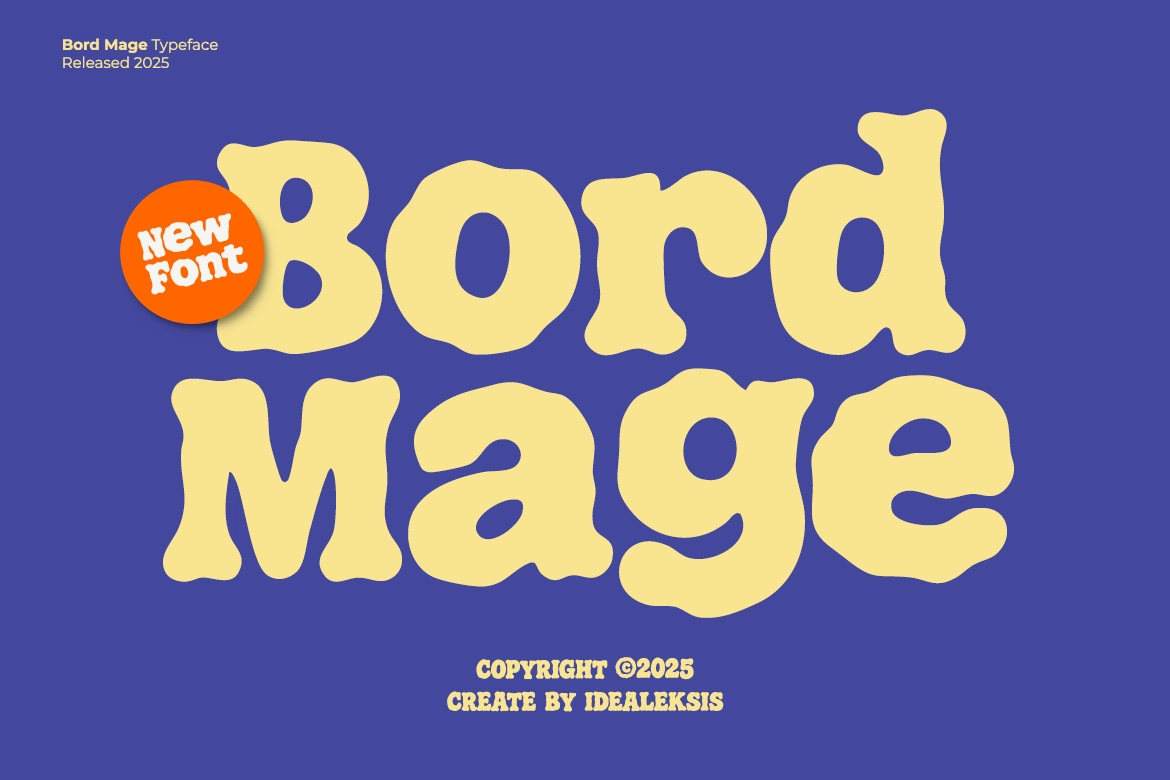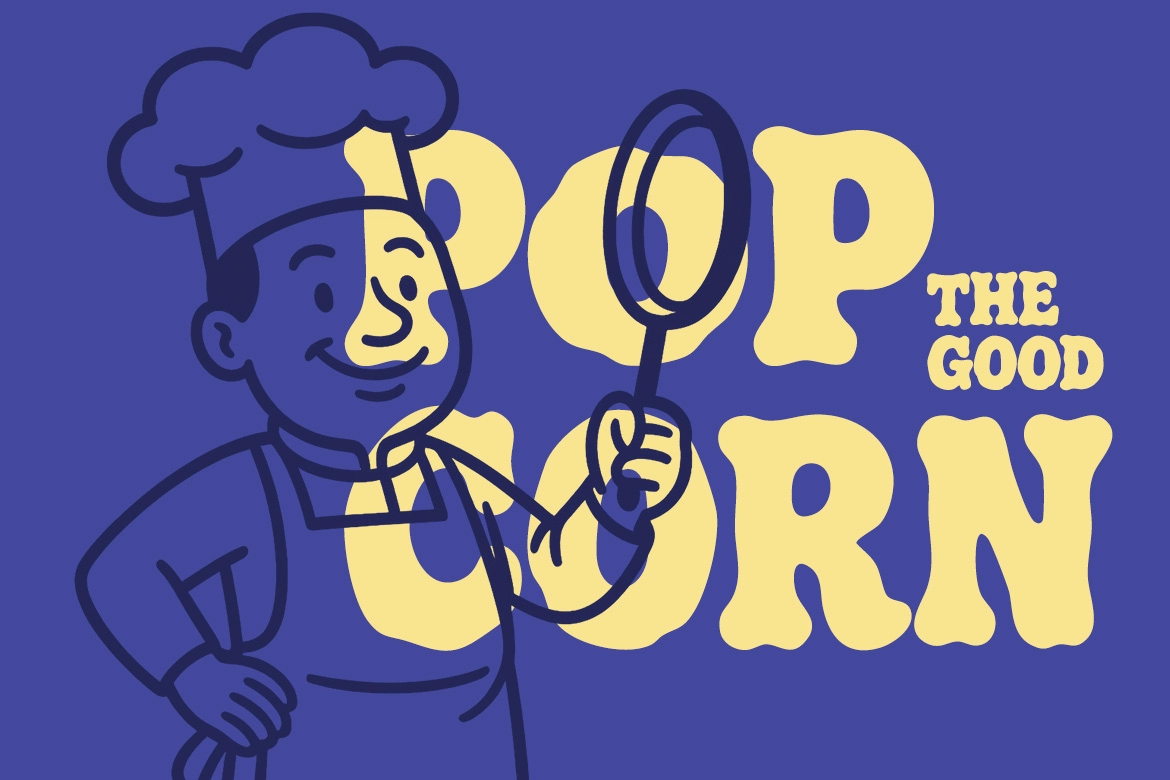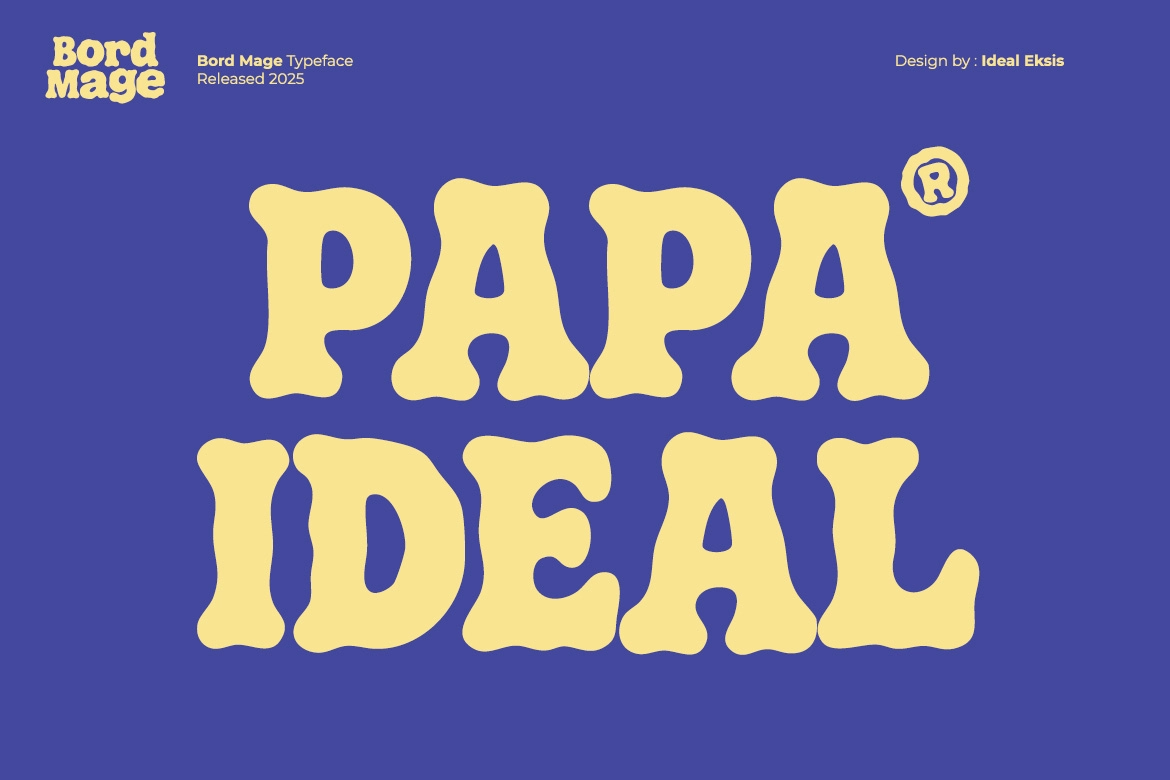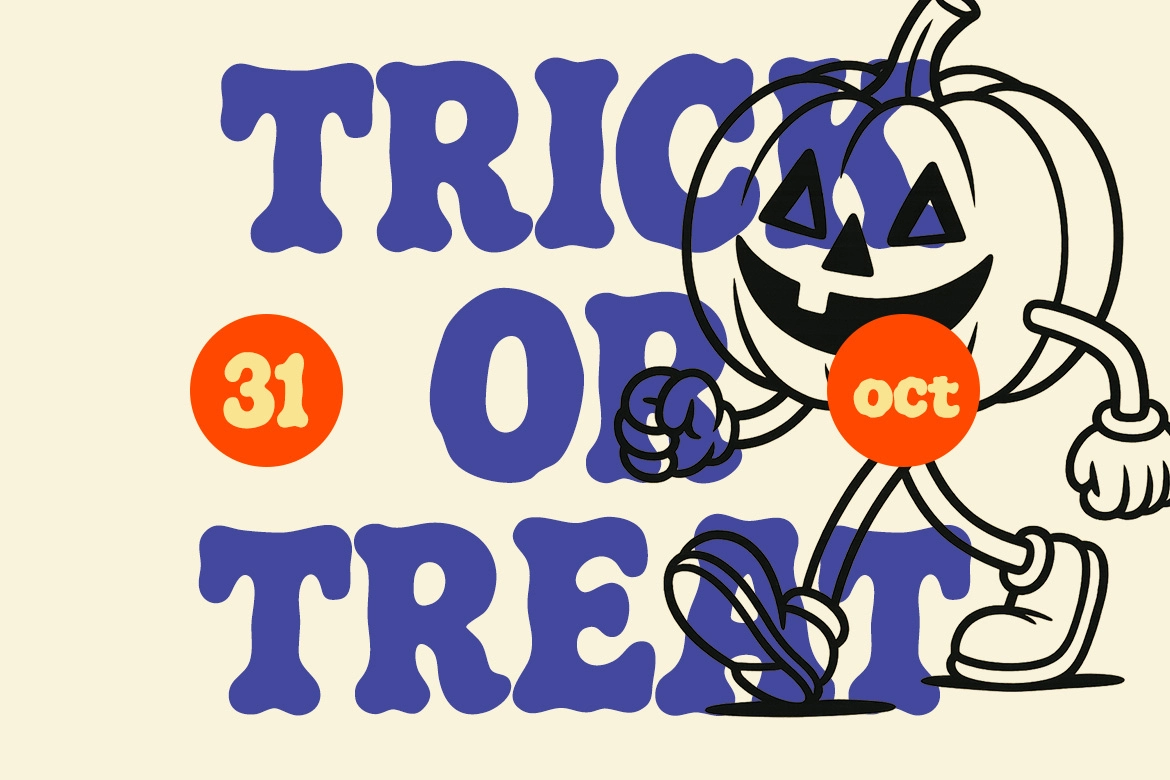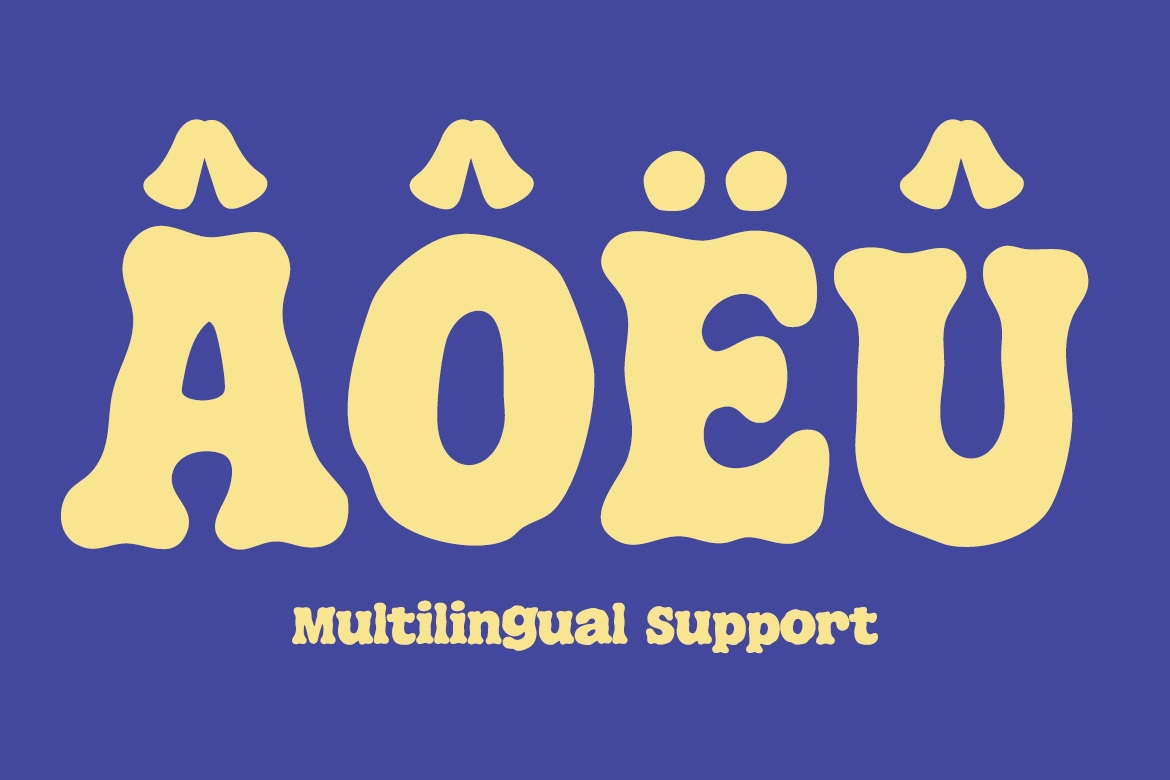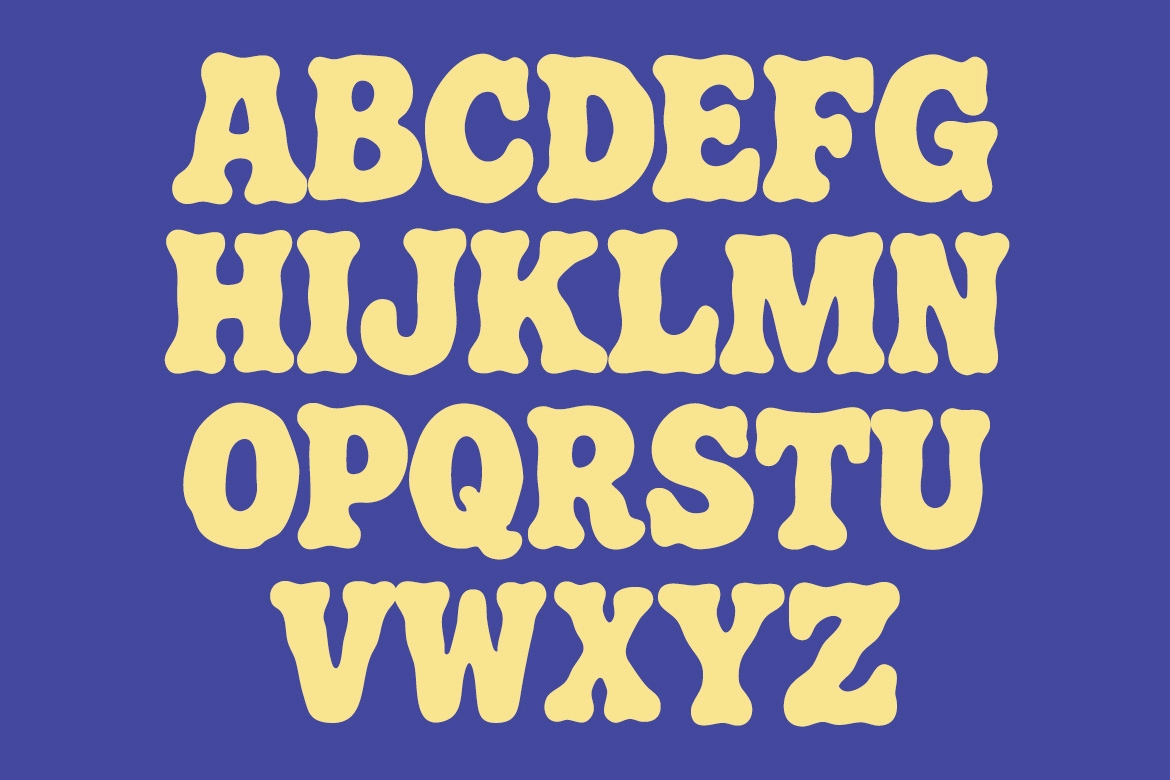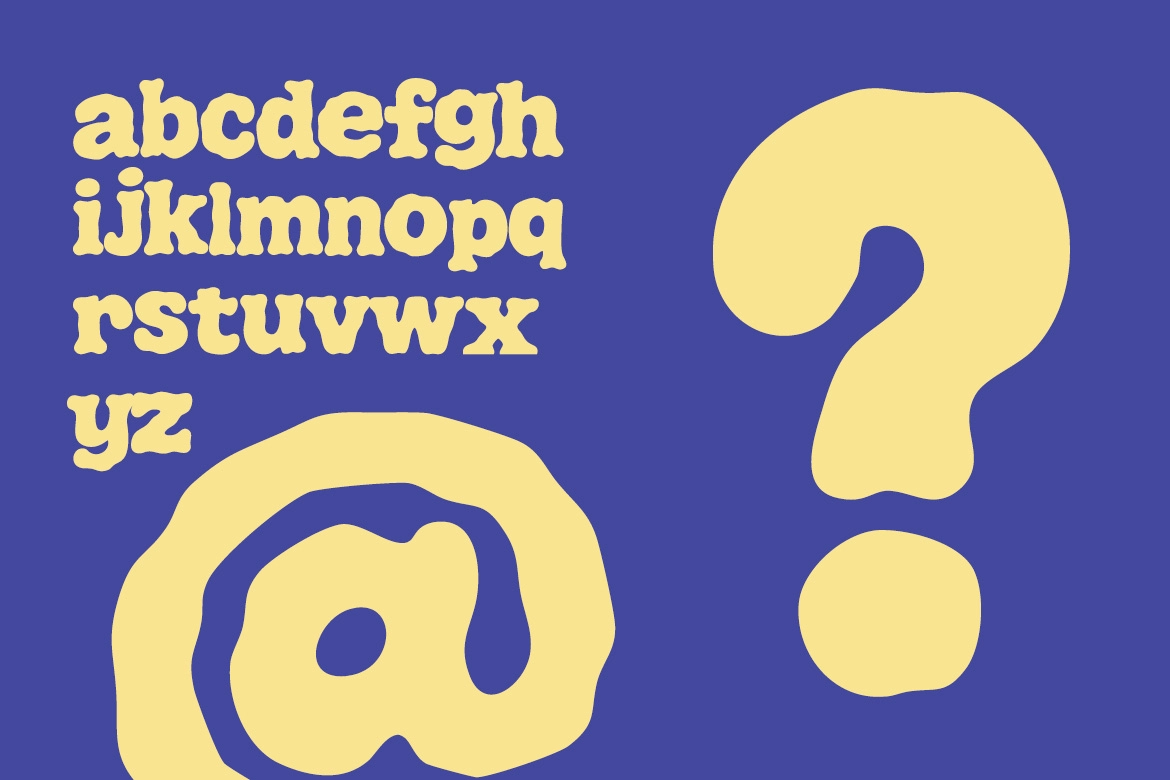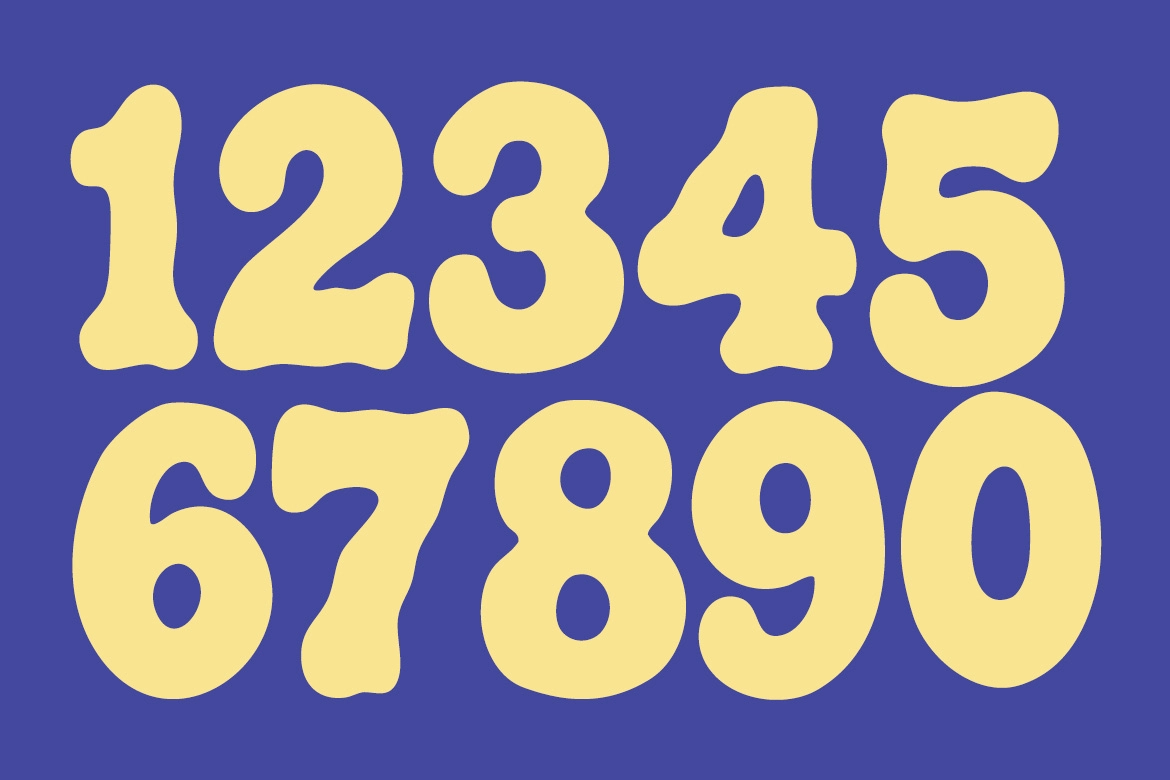
Bord Mage - Bubble Retro Display Font
Bord Mage
Bord Mage - Bubble Retro Display Font is a playful typeface that blends bold bubble shapes with a nostalgic retro vibe. Its soft rounded curves and chunky letterforms create a cheerful, eye-catching look that instantly brings a fun vintage personality to your typography.
Perfect for designs that need a lively and expressive style, Bord Mage works beautifully for posters, packaging, branding, logos, social media graphics, merchandise, and creative retro-themed projects. The bubbly forms and friendly character make it especially great for bold headlines and standout visual compositions.
- Uppercase & lowercase characters
- Numbers & punctuation
- Bold retro bubble style for playful display typography